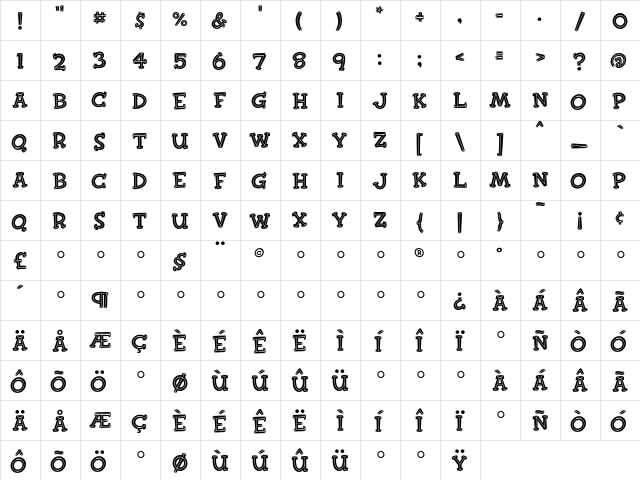
FinkBold Medium
Design Context for FinkBold Typeface
FinkBold offers clean, dependable letterforms without strong stylistic allegiance, making it a practical choice for designers who need flexibility. The heavy weight commands attention and anchors typographic hierarchies.
Pro Tip: Pair FinkBold with a font of contrasting weight or personality to build a more expressive typographic hierarchy.